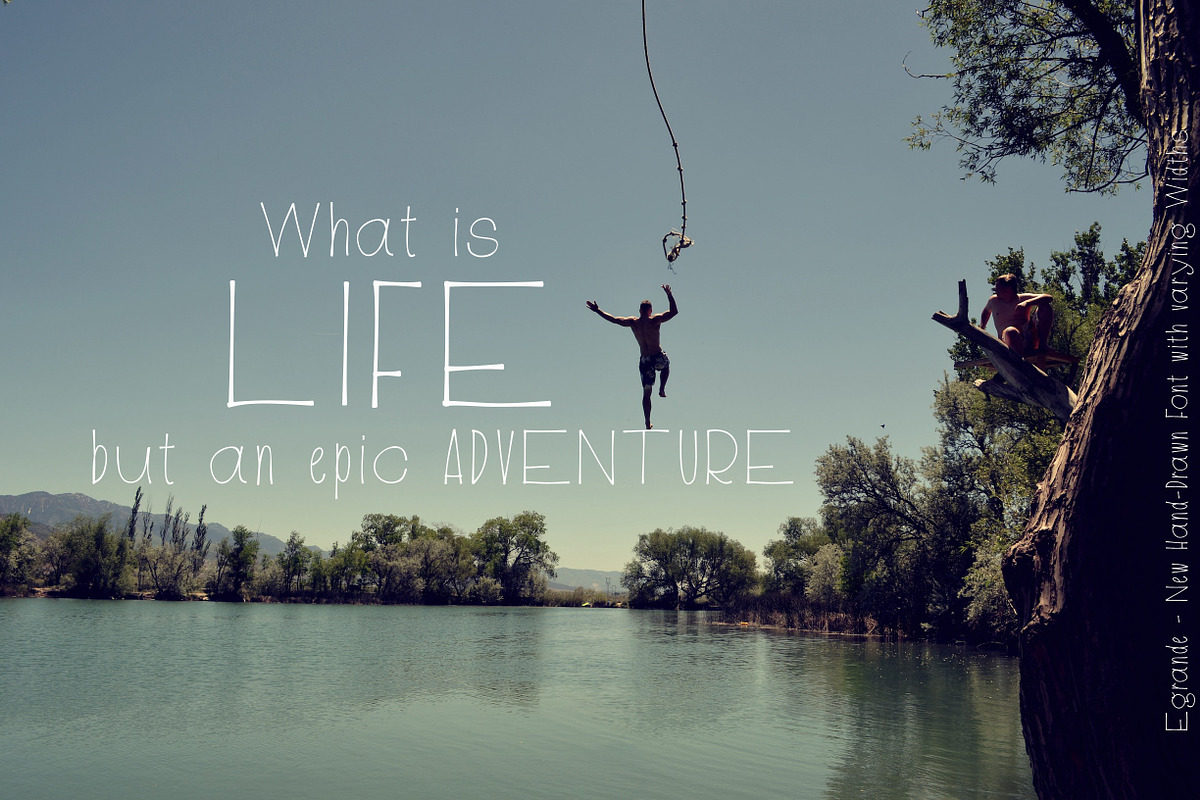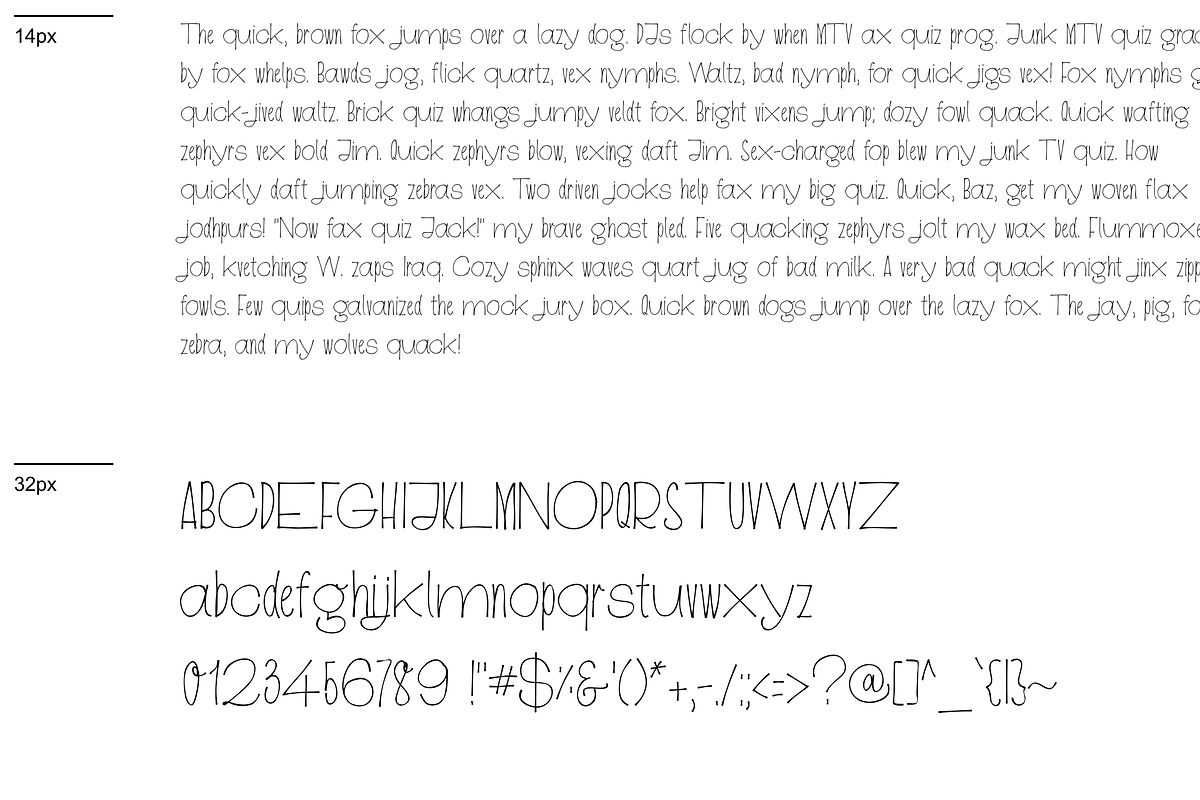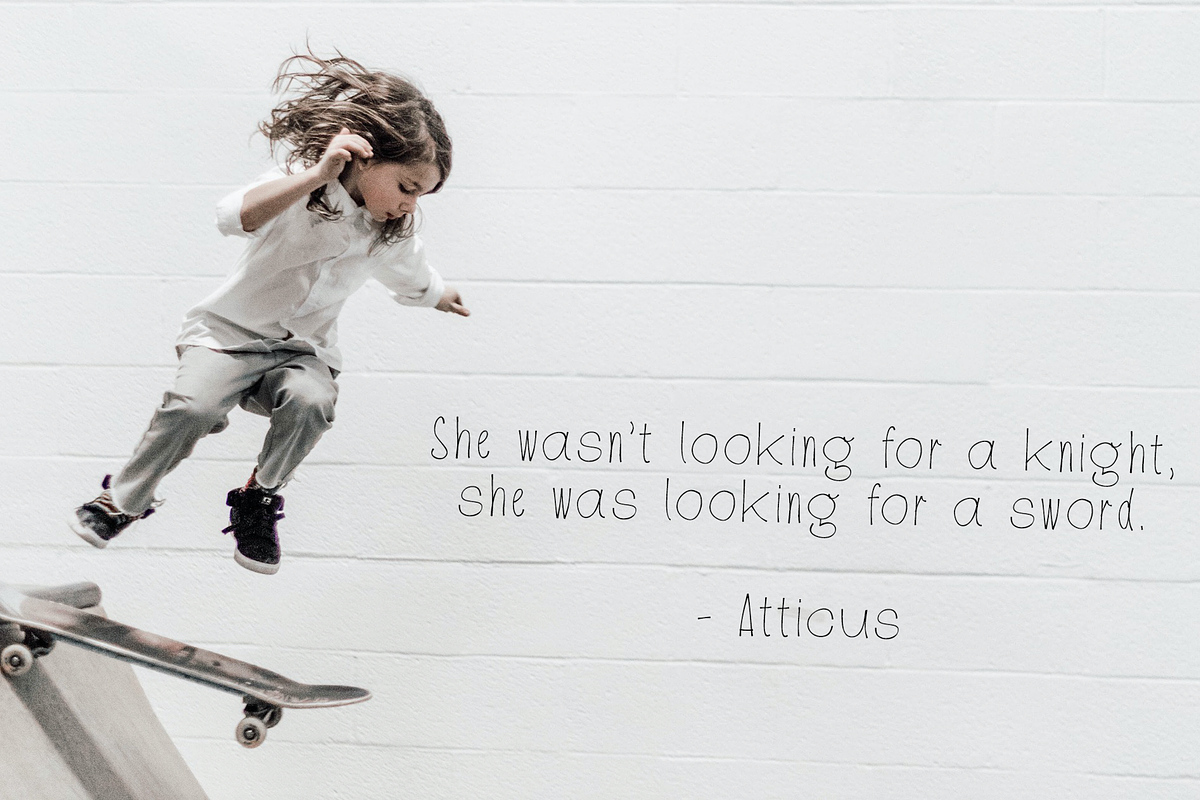
EGRANDE - Hand-Drawn Varied Font
EGRANDE is a fun and quirky font for when you want to mix things up!
- Includes Latin accents & a range of symbols.
EGRANDE - Hand-Drawn Varied Font by dorisfullgrabe fits naturally into Branding, posters, packaging, typography.